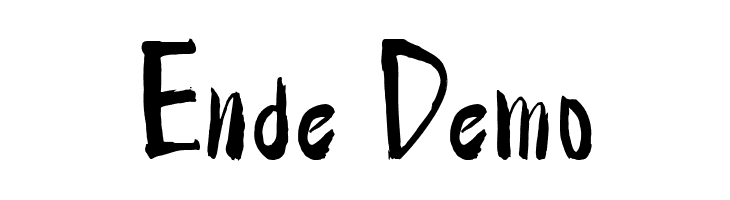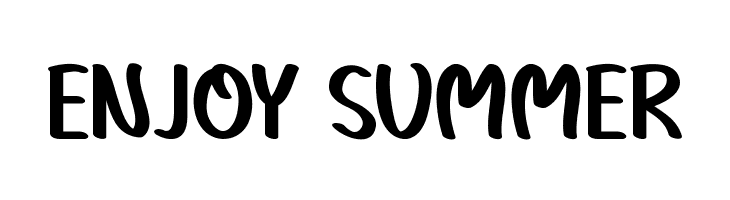
A bold, hand-painted style font with dynamic, expressive strokes.
A bold, brush script font with dynamic, hand-painted strokes.
A graceful script font with flowing, elegant strokes and high contrast.
A romantic and elegant script font with graceful loops and swashes.
A romantic and sophisticated script font with flowing, cursive letters and ornate flourishes.
A playful, handwritten font with smooth, flowing curves and a whimsical style.
A bold, gothic blackletter font with sharp, angular lines and intricate detailing.
A bold, hand-brushed script font with dynamic strokes and a spontaneous feel.
A bold, energetic script font with fluid strokes and a dynamic style.
A dynamic and flowing script font with elegant, interconnected letters.